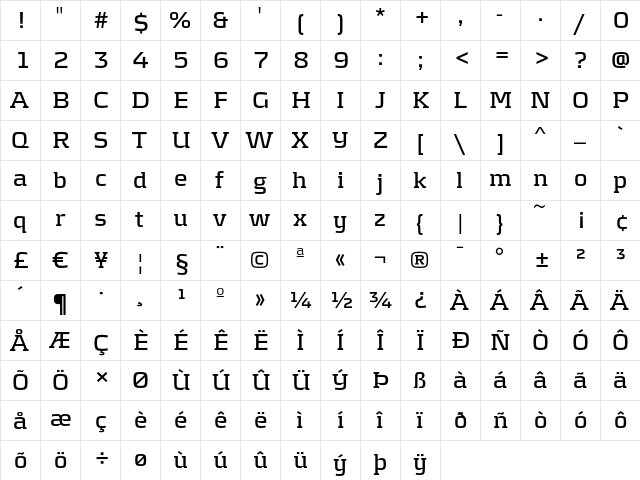
Kontrapunkt Bold
Design Context for Kontrapunkt Typeface
Kontrapunkt takes a measured approach to typography — its balanced proportions and neutral character make it a reliable workhorse for both digital and print work. The heavy weight commands attention and anchors typographic hierarchies.